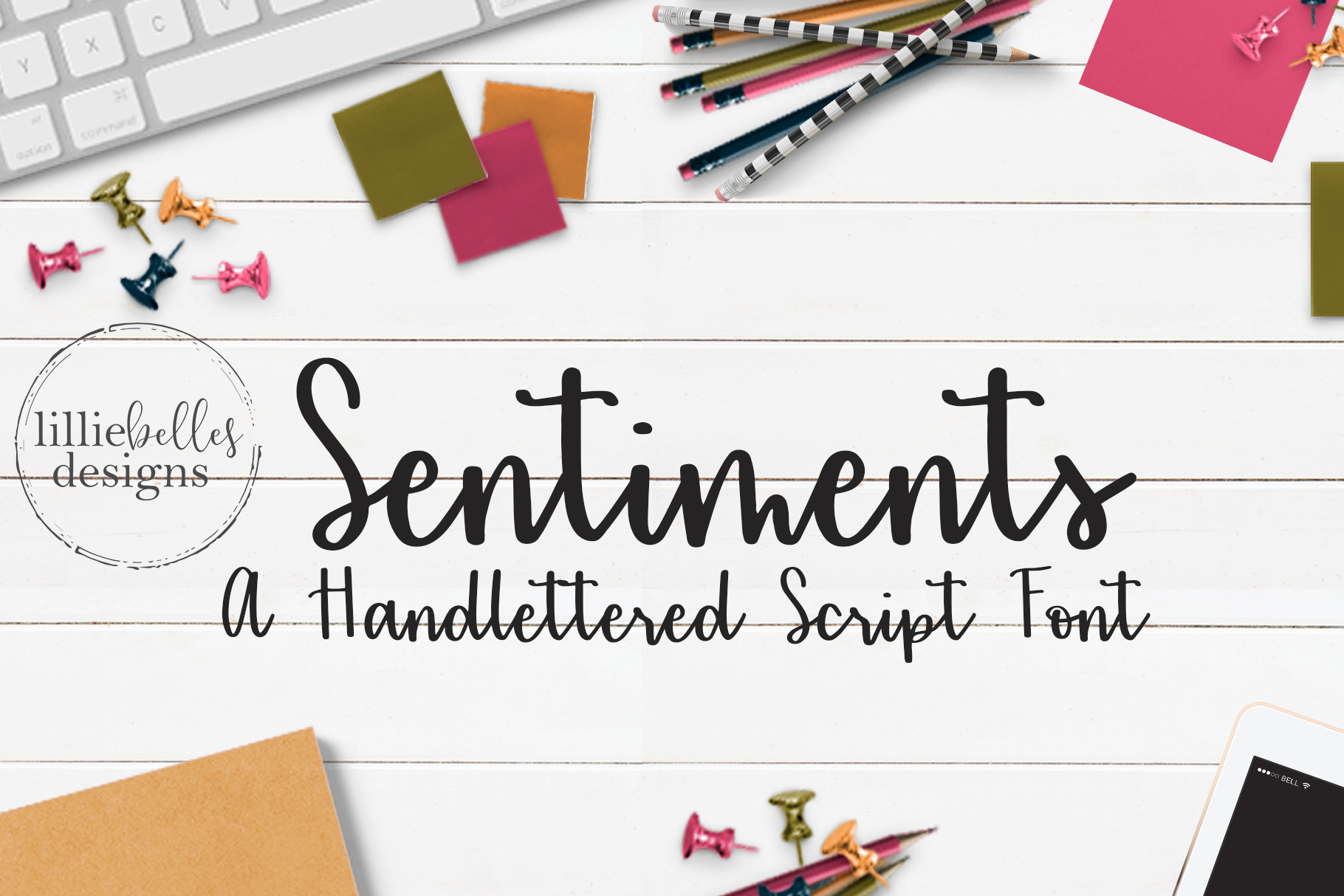
Sentiments - A Handlettered font
Sentiments is perfect for designing cards and invitations. Of course, you can use it in your other projects too!
- Script uppercase and lowercase
- Standard ligatures